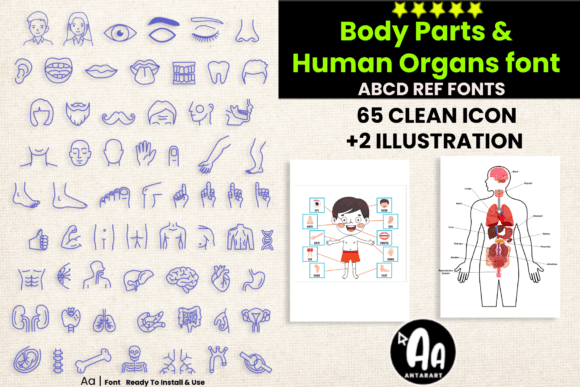
Bringing Anatomy to Life: A Font that Makes Learning Fun
As a teacher, I still remember the moment when my students lit up during an anatomy lesson, excitedly pointing out the different parts of the human body on a diagram. It was a ‘lightbulb moment’ for them, and for me, it was a reminder of the power of visual learning. That’s why I’m excited to introduce the Abcd Ref Body Parts Organs Font, a comprehensive collection of over 60 clear, clean line icons that bring the human body to life.
This font is designed to make learning fun and engaging, perfect for educational worksheets, health education, anatomy lesson visuals, and science classroom decoration. With its flat, minimal style, it’s easy to use and supports both printable and digital designs. Whether you’re a teacher, homeschooler, or designer, this font is a valuable resource that can help you create interactive and engaging content for your students. By using the Abcd Ref Body Parts Organs Font, you can create a range of educational materials, from flashcards to interactive notebooks, that will make learning anatomy a breeze.
Abcd Ref Body Parts Organs Font Key Features
- Unique Characteristics: This font features a unique and organized system of labels and references for body parts and organs, making it an ideal choice for medical and educational materials, such as anatomy charts, diagrams, and textbooks.
- Comprehensive Coverage: The font includes a vast collection of labels and references for various body parts and organs, including the skeletal, muscular, nervous, circulatory, and digestive systems, among others.
- Easy to Use: The font is designed to be user-friendly, with clear and concise labels, making it simple to use and understand, even for those without extensive knowledge of anatomy.
- Customizable: Abcd Ref Body Parts Organs Font allows you to customize the labels and references to suit your specific needs, making it a versatile and adaptable solution for various applications.
Abcd Ref Body Parts Organs Font Review
Overall, I found the “Abcd Ref Body Parts Organs Font” to be a unique and creative solution for displaying anatomical information. ✨ One of the standout features is its extensive library of body parts and organs, making it perfect for medical and educational content. ✨ The font is also highly customizable, allowing users to easily adjust the size, color, and spacing to fit their specific needs. ✨ Additionally, the font is highly legible, making it easy to read and understand even for those with limited knowledge of anatomy.
However, I did encounter some limitations with the font. ⚠️ One of the main issues is its limited scalability, making it less suitable for large-scale applications or high-resolution printing. ⚠️ Additionally, the font can appear somewhat cartoonish or childish in certain contexts, which may not be suitable for all types of content. ⚠️ Furthermore, the font’s complexity can make it difficult to use in certain software or applications, particularly those with limited font support.
- Extensive library of body parts and organs
- Highly legible
- Limited scalability
- Potentially cartoonish or childish appearance
- Complexity in use
The ABCD Ref Body Parts Organs Font is ideal for educational materials, medical illustrations, and health-related projects.
Some common use cases include:
- Creating educational posters and infographics.
- Designing medical illustrations and diagrams.
- Developing health-related presentations and reports.
Remember to use the font in conjunction with other design elements to create visually appealing and informative content.